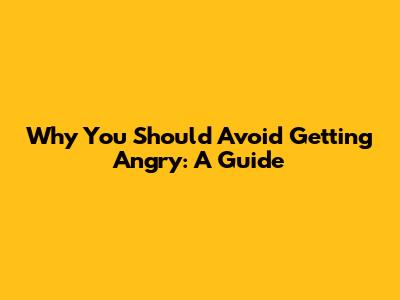
- Website Design: iBowlby One Regular works great for both headings and body text. Its clean and readable design ensures a pleasant reading experience for your visitors. Use it for navigation menus, titles, and paragraph text to create a cohesive and professional look. The font's modern aesthetic can help elevate your website's design, making it more visually appealing and engaging for users. When using iBowlby One Regular for website design, consider pairing it with other complementary fonts to create visual contrast and hierarchy. For example, you could use iBowlby One Regular for headings and a different sans-serif font for body text. Experiment with different font sizes and weights to achieve the desired effect. Also, ensure that the font is properly optimized for web use to minimize loading times and ensure a smooth user experience. Using CSS, you can easily control the font's appearance, including its size, color, and spacing, to match your website's overall design scheme. The font's versatility makes it a reliable choice for various types of websites, from blogs and portfolios to e-commerce sites and corporate websites.
- Logo Design: If you're looking for a font that's both modern and timeless, iBowlby One Regular is an excellent choice for logo design. Its clean lines and balanced letterforms make it easily recognizable and memorable. Use it to create a simple yet effective logo that reflects your brand's identity. The font's neutrality allows it to adapt to different brand styles, making it suitable for a wide range of industries. When designing a logo with iBowlby One Regular, consider using different font weights and styles to create visual interest and emphasis. You can also customize the font by adjusting the letter spacing and kerning to achieve the perfect look. Experiment with different color combinations to enhance the logo's impact and ensure that it stands out from the competition. The font's legibility ensures that the logo remains readable even at smaller sizes, which is crucial for branding applications. Whether you are creating a logo for a startup or a well-established company, iBowlby One Regular provides a solid foundation for a strong and lasting brand identity.
- Print Materials: iBowlby One Regular is also a great choice for print materials like brochures, flyers, and business cards. Its readability and clean design ensure that your message is clear and easy to understand. Use it for headlines, body text, and captions to create professional-looking print materials. The font's versatility allows it to be used in various print applications, from marketing collateral to editorial layouts. When using iBowlby One Regular for print materials, ensure that the font size and weight are appropriate for the intended audience and reading environment. Use clear and concise language to complement the font's readability. Experiment with different layouts and design elements to create visually appealing print materials that effectively communicate your message. The font's consistent appearance ensures that your brand identity remains consistent across all print materials. Whether you are creating a brochure for a new product or a business card for a networking event, iBowlby One Regular provides a professional and polished look that can help you make a lasting impression.
- Social Media Graphics: Want your social media posts to look professional and eye-catching? Use iBowlby One Regular for your text overlays. Its clean and modern look will help your graphics stand out from the crowd. Use it for quotes, announcements, and promotional messages to create visually appealing social media content. The font's readability ensures that your message is clear and easy to understand, even on small screens. When creating social media graphics with iBowlby One Regular, consider using different font sizes and weights to create visual hierarchy and emphasis. Use vibrant colors and eye-catching images to complement the font's modern aesthetic. Experiment with different layouts and design elements to create engaging social media content that captures your audience's attention. The font's versatility allows it to be used in various social media platforms, from Instagram and Facebook to Twitter and LinkedIn. Whether you are creating a post for a new product launch or a simple announcement, iBowlby One Regular provides a professional and polished look that can help you stand out from the competition.
- iBowlby One Regular & Montserrat: This is a classic pairing that combines the clean lines of iBowlby One Regular with the slightly more rounded appearance of Montserrat. Use iBowlby One Regular for headings and Montserrat for body text, or vice versa.
- iBowlby One Regular & Open Sans: Open Sans is another popular sans-serif font that pairs well with iBowlby One Regular. Its neutral and readable design makes it a great choice for body text, while iBowlby One Regular can be used for headings and other prominent elements.
- iBowlby One Regular & Roboto: Roboto is a versatile sans-serif font that works well in a variety of design contexts. Pair it with iBowlby One Regular for a modern and professional look.
Hey guys! Are you on the hunt for a unique and versatile font to spice up your design projects? Look no further! In this article, we're diving deep into iBowlby One Regular, a fantastic font that's both stylish and functional. We'll cover everything from where to download it for free to how you can use it to make your designs truly stand out. So, buckle up and let's get started!
What is iBowlby One Regular?
iBowlby One Regular is a modern sans-serif typeface known for its clean lines and contemporary feel. It's incredibly versatile, making it suitable for a wide range of applications. Whether you're working on a website, designing a logo, or creating marketing materials, iBowlby One Regular can add a touch of sophistication and readability. The font's balanced letterforms ensure that it remains legible even at smaller sizes, which is crucial for body text and other detailed applications. Its neutral yet stylish appearance allows it to blend seamlessly with various design aesthetics, making it a reliable choice for both professional and personal projects. Moreover, the font's design incorporates subtle nuances that give it character without being overly distracting, ensuring that it enhances rather than overwhelms the overall design. The developers of iBowlby One Regular have focused on creating a typeface that is both aesthetically pleasing and highly functional, resulting in a font that is a valuable addition to any designer's toolkit. From digital interfaces to print media, iBowlby One Regular offers a consistent and polished look that can elevate the visual appeal of any project. The font's adaptability also makes it an excellent choice for branding, where consistency and clarity are paramount. Its clean design can help establish a strong visual identity, ensuring that your message is communicated effectively and professionally. Whether you are creating a new brand identity or revamping an existing one, iBowlby One Regular provides a solid foundation for a cohesive and impactful design.